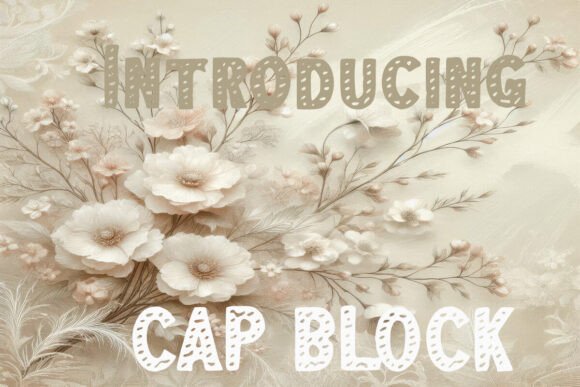
Bring Your Designs to Life with Cap Block Font
Do you remember the moment when you finally found the perfect font to match your creative vision? The excitement of seeing your ideas come to life with a font that truly reflects your personality? That’s exactly what the Cap Block Font can do for you. This versatile font is designed to add a bold, classic touch to any project, making it perfect for trendy shirts, stickers, branding, and professional designs.
As a designer, you know how crucial it is to find the right font to elevate your creations. The Cap Block Font is ideal for greeting cards, Cricut projects, posters, and social media, ensuring your designs stand out from the crowd. With its unique blend of style and energy, this font is a valuable addition to any designer’s toolkit. Whether you’re a seasoned pro or just starting out, the Cap Block Font is sure to inspire your next creative project.
Key Features of Cap Block Font
- Unique Characteristics: Features a distinctive, bold, and geometric design with rounded corners and flat edges, making it ideal for use in titles, headings, and other display text.
- Language Support: Supports a wide range of languages, including Latin, Cyrillic, Greek, and more, making it a versatile font for global use.
- Font Styles: Available in 4 different font styles: Regular, Bold, Italic, and Bold Italic, providing flexibility for designers to choose the right style to match their design needs.
Cap Block Font Review
As a designer, I had the opportunity to work with Cap Block Font, and here’s my honest review.
- Unique and Bold Design: Cap Block Font has a distinctive, block-like structure that sets it apart from other fonts.
- High Legibility: Despite its bold nature, Cap Block Font is surprisingly easy to read, even at smaller font sizes.
- Customization Options: The font family offers a range of weights and styles, allowing for flexibility in design projects.
Limited Use Cases ⚠️
- Lack of Expressiveness: Due to its block-like design, Cap Block Font may not be the best choice for projects that require a more nuanced or expressive typography.
- Limited Contextual Support: The font may not perform well in certain contexts, such as body text or fine typography.
- May Not be Suitable for Long Text: The bold nature of the font can make it challenging to read large blocks of text.
Cap Block Font is a unique and bold font that excels in certain design contexts, such as headlines or titles. However, its limitations may make it less suitable for other projects. With careful consideration of the project’s requirements and audience, Cap Block Font can be a valuable addition to a designer’s toolkit.
Cap Block Font is ideal for creating bold, attention-grabbing headlines and titles. It’s also great for adding a touch of modernity to your designs. Some common use cases include:
- Infographics and visualizations
Remember to experiment with different font sizes, colors, and styles to get the most out of Cap Block Font.
Alternatives to Cap Block Font
Montserrat is a modern sans-serif font designed for digital use. It is clean, simple, and highly legible, making it perfect for headings and titles. When to use: Use Montserrat for digital interfaces, mobile apps, and websites where you need a clean and modern look. Compared to Cap Block Font: Montserrat has a more rounded and condensed feel, making it more suitable for digital use.
Avenir is a geometric sans-serif font designed by Adrian Frutiger. It is highly versatile and can be used for both digital and print media. When to use: Use Avenir for corporate identities, magazines, and books where you need a sophisticated and elegant look. Compared to Cap Block Font: Avenir has a more geometric feel and a wider range of weights, making it more suitable for complex designs.